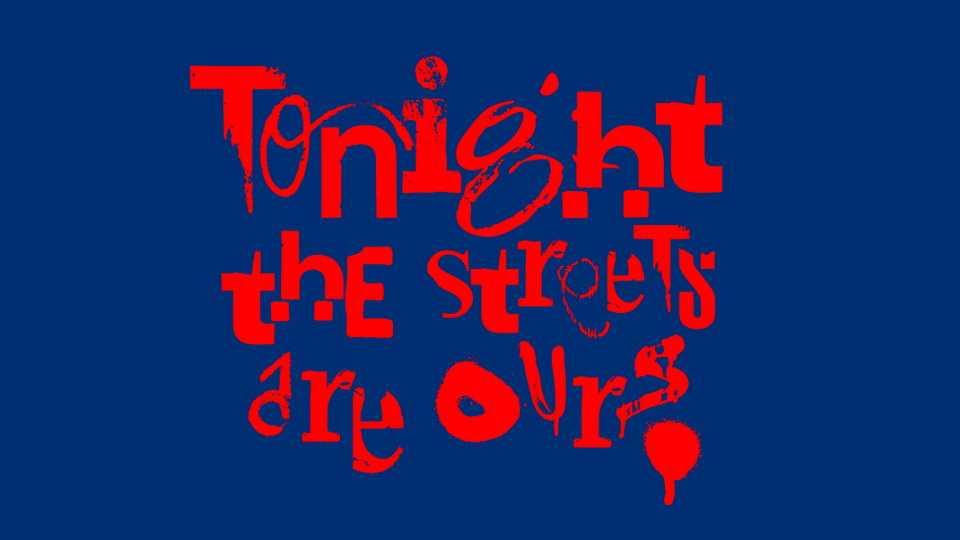
Download Gadetyper font a creative display typeface consisting of more than 250 glyphs photographed in the streets of Copenhagen. Gadetyper font is great for posters, headlines, banners and other unique typographic projects.
Designer: Christian Koch